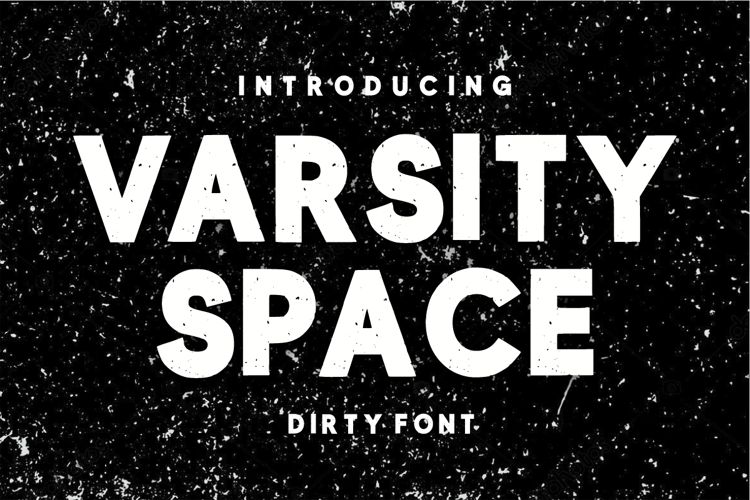
Varsity Space
Varsity Space is a Vintage, cool, grunge bold display font perfect for various projects such as blog posts, logos, branding, ads, invitations, greeting cards, planners, photo albums, decorations, and much more.